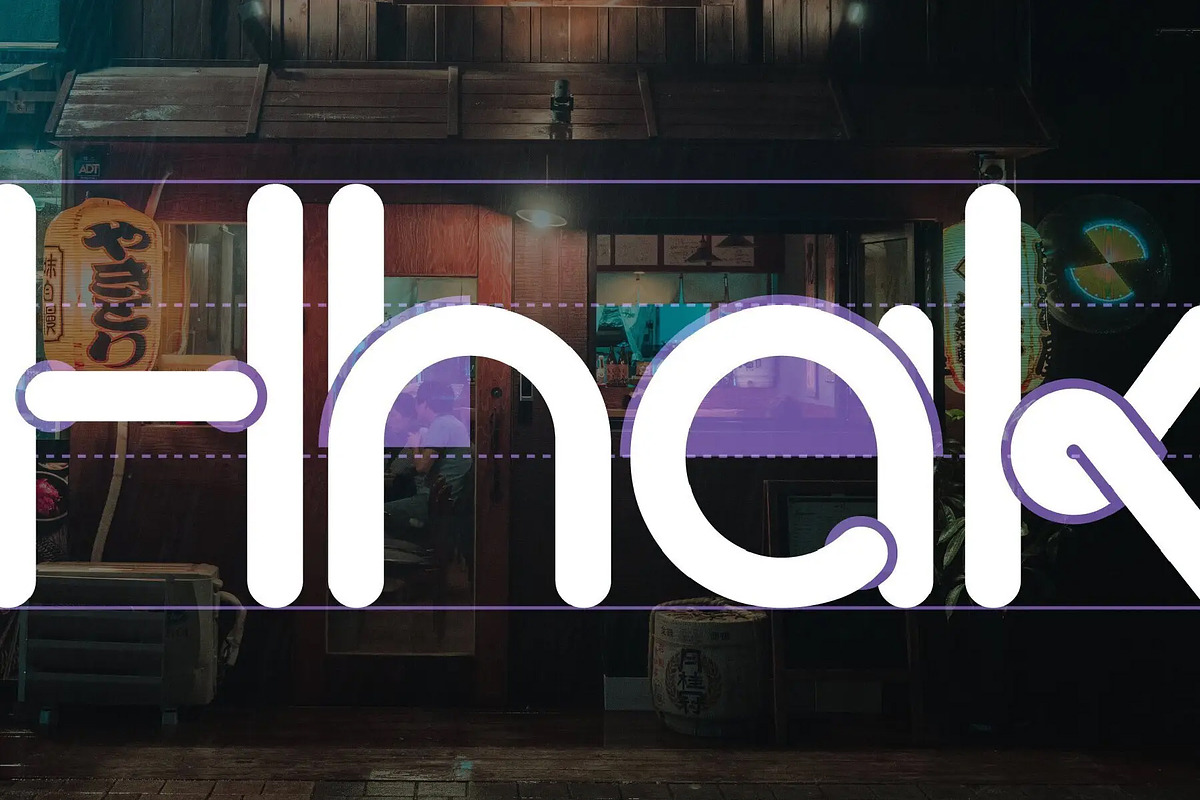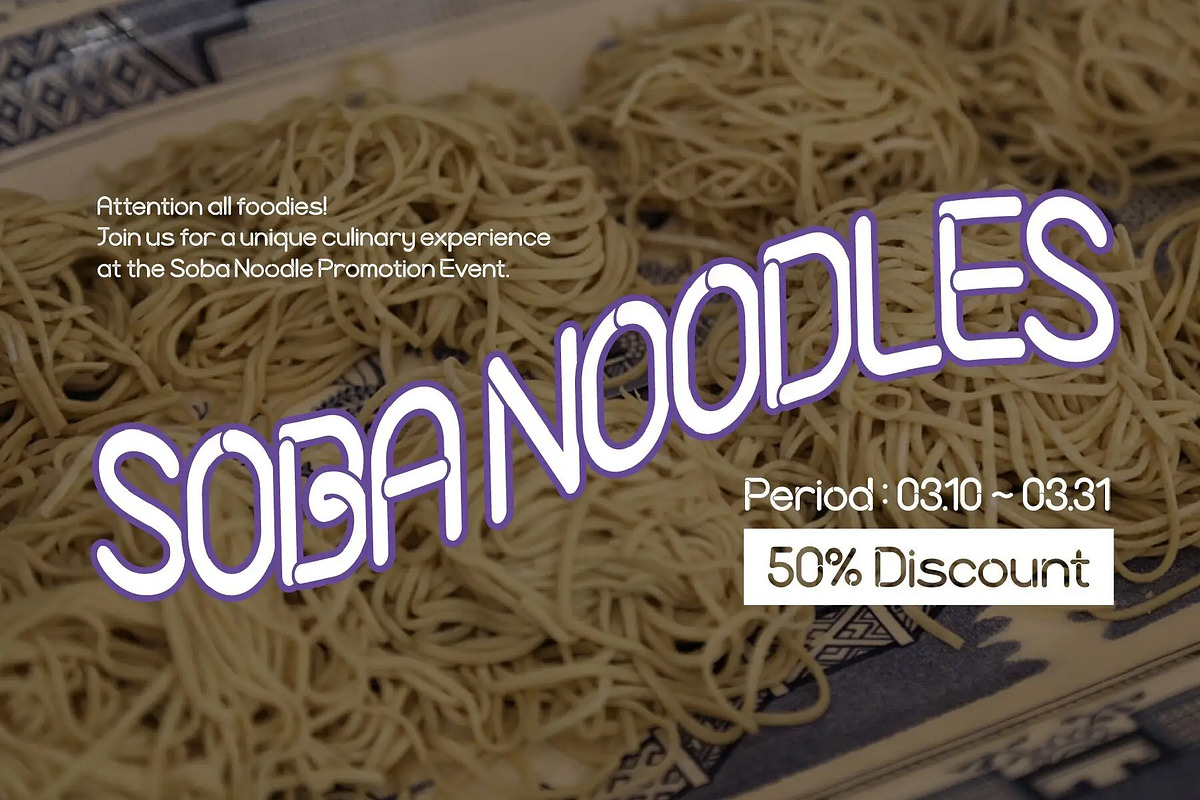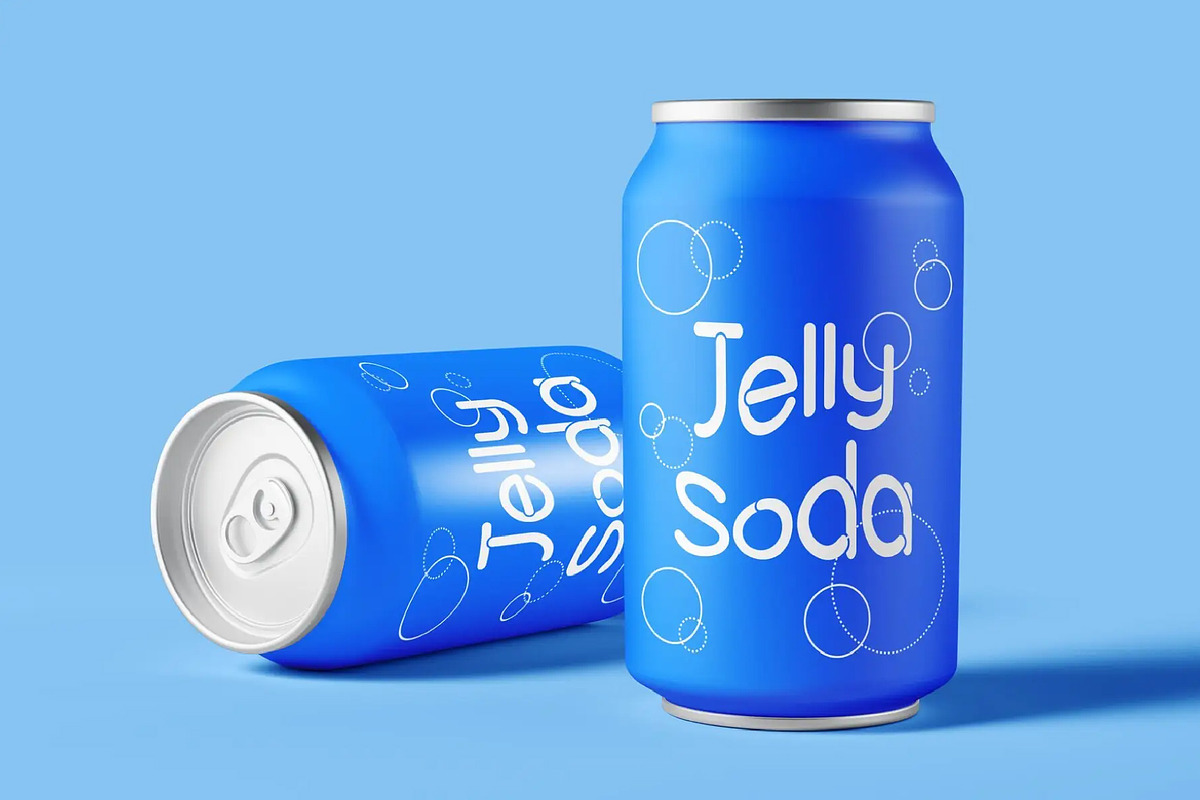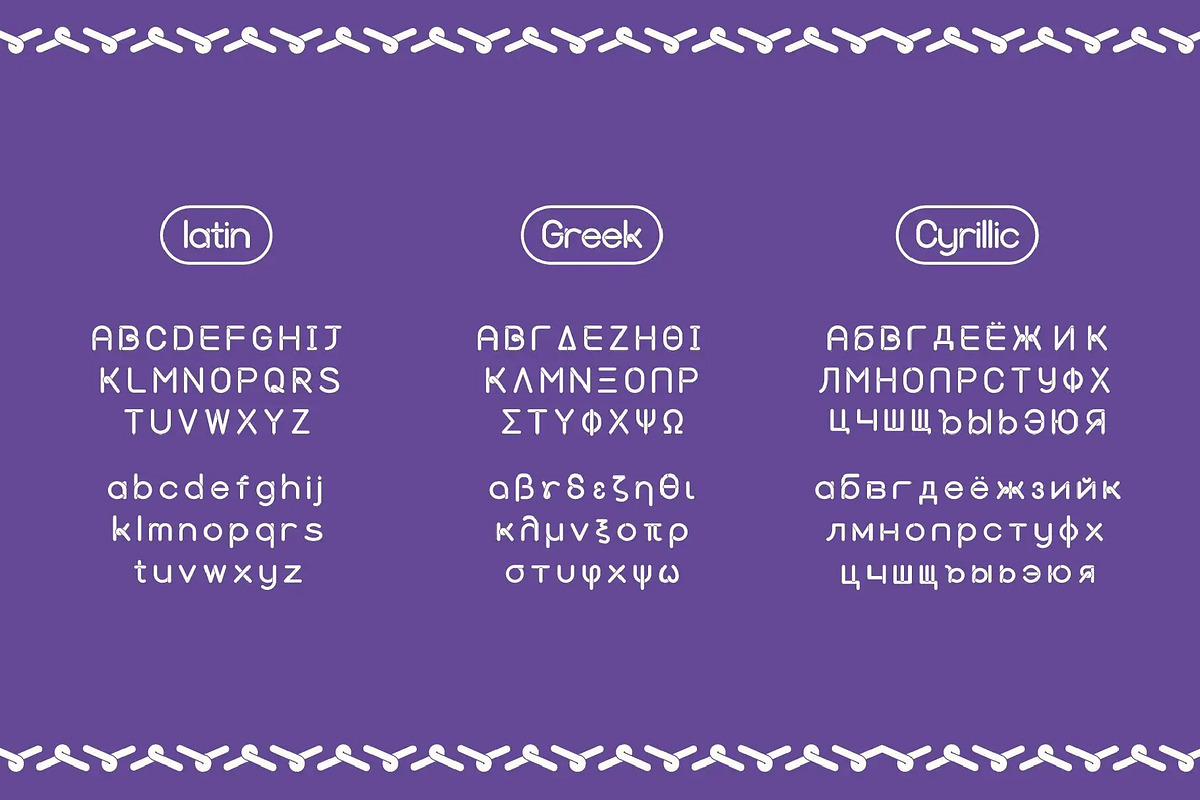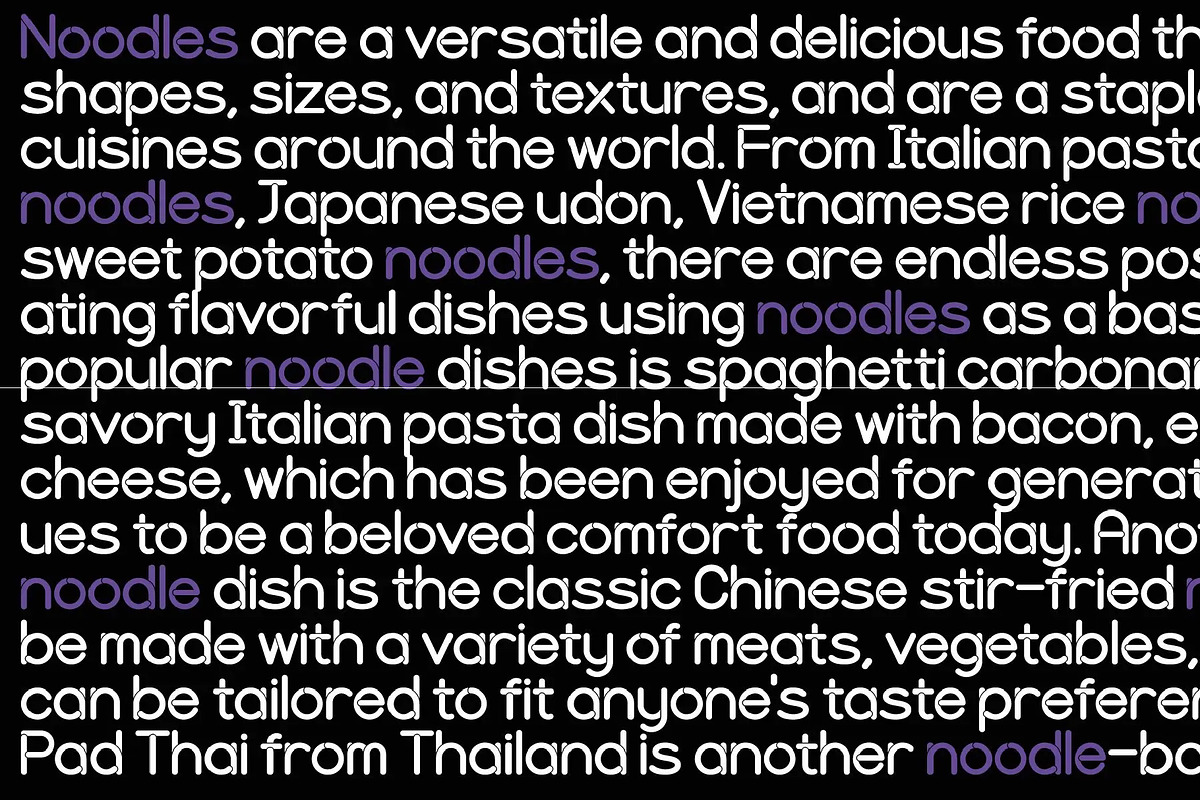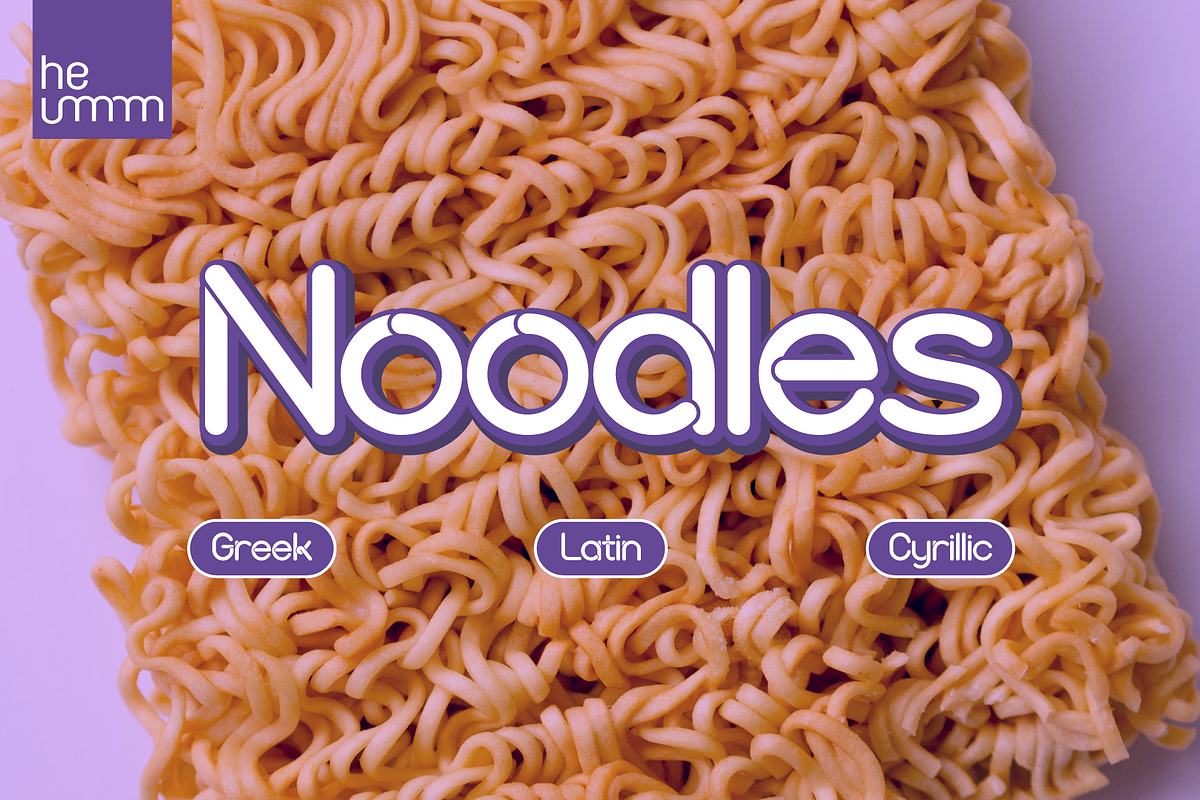
HU Noodles is a latin alphabet font.
HU Noodles offers a distinctive design that mimics the curling form of noodles.
This is a stencil-type font designed by drawing with one brush and following the stroke order. It is characterized by rounded strokes and a tight square shape. It is recommended to use it for characteristic titles.
There is 1 weight of HU Noodles : Bold
- Multilanguage (Basic Latin, Western European, Euro, Catalan, Baltic, Turkish, Central European, Romanian, Pan African Latin, Dutch, Afrikaans, Basic Greek, Basic Cyrillic, Mathematical Operators)